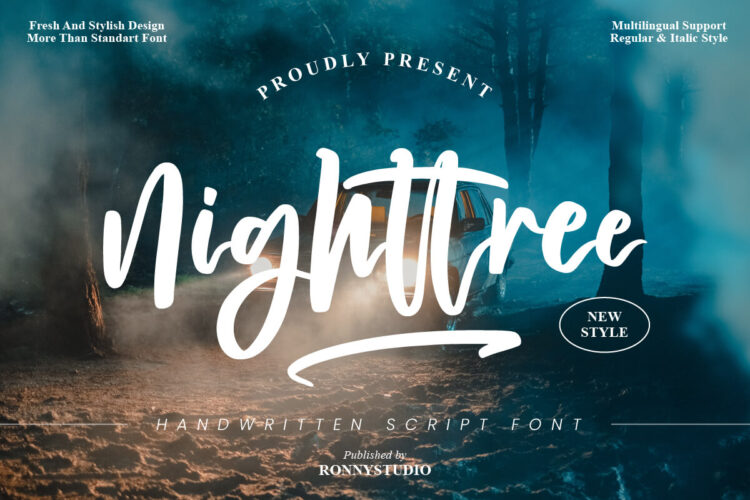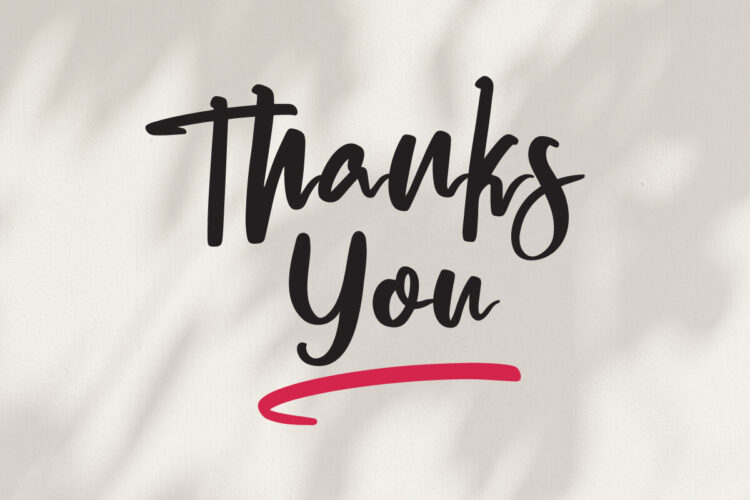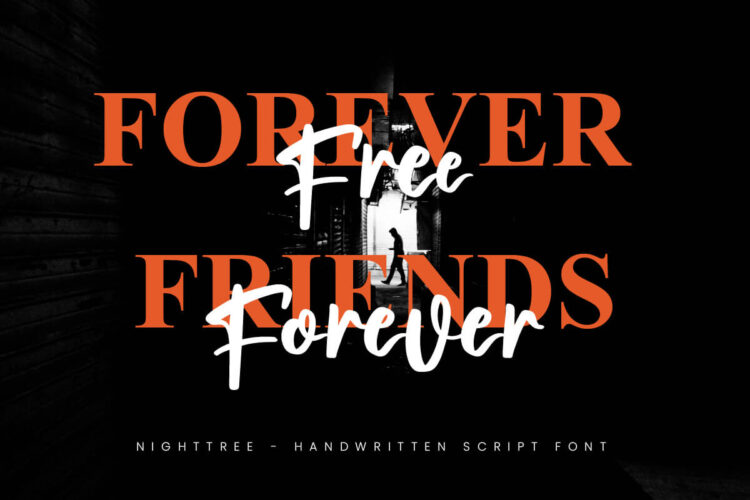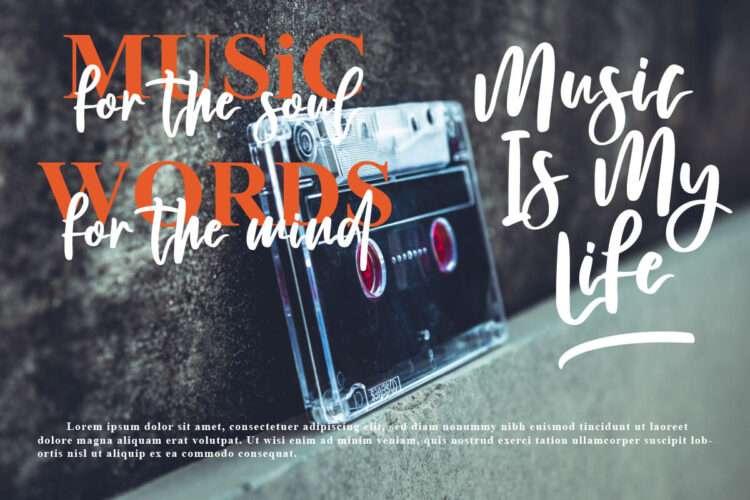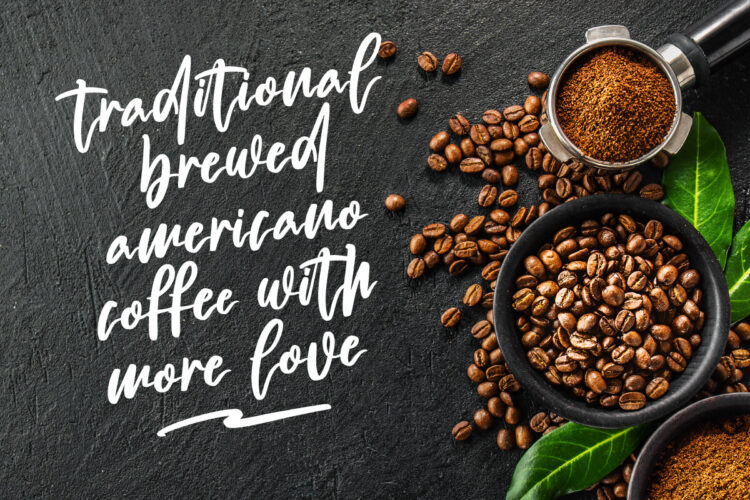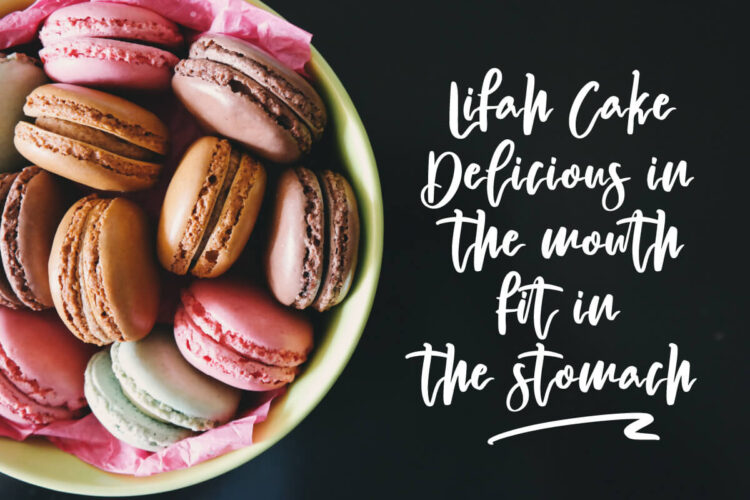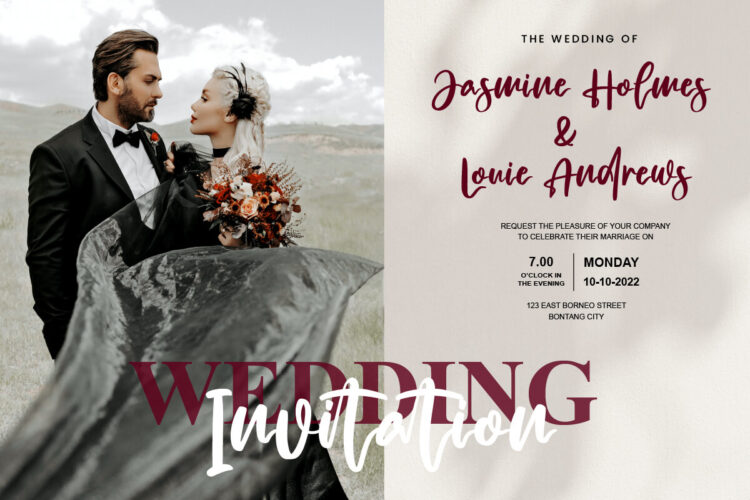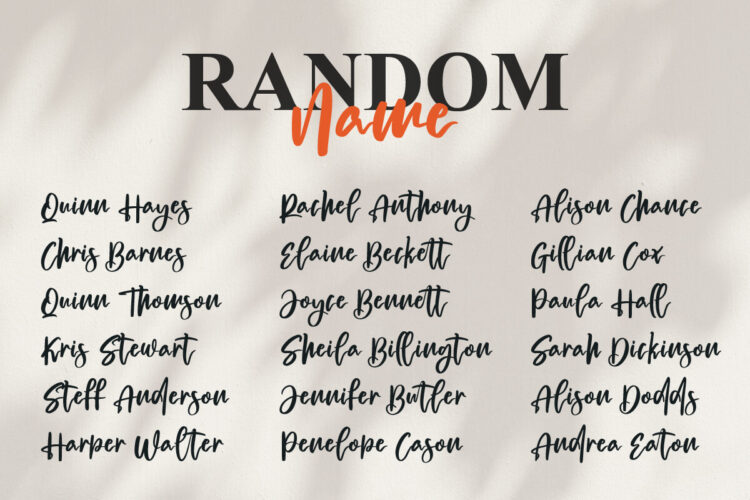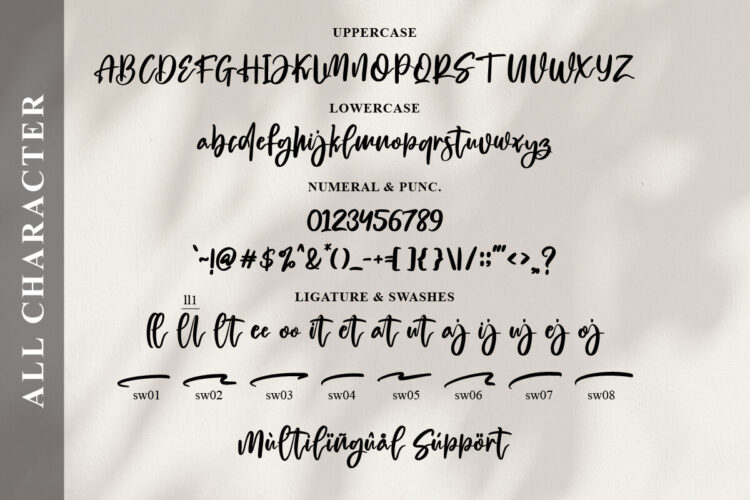
handwritten script font
Nighttree Regular
Nighttree Italic
Nighttree is a lovely script font featuring charming, playful characters that seem to dance along the baseline. It is PUA encoded which means you can access all glyphs and swashes with ease! This font is perfect for branding, business cards, Christmas cards, Social Media Posts, logos, product packaging, wedding invitations, quotes, decorations, t-shirts, poster labels etc.
• Uppercase & Lowercase
• Number & Punctuation
• Ligature & swash
• Multilingual Support
2 Style font :
• Regular
• italic
Nighttree – Handwritten Script Font